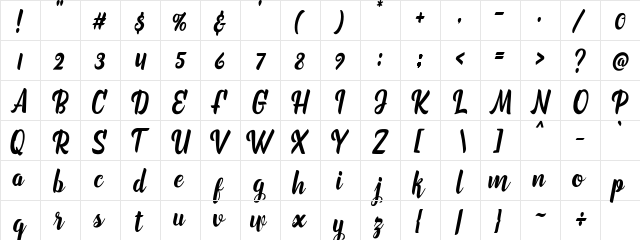
Marchelina Script Font Preview
Design Context for Marchelina Script Typeface
Marchelina Script brings a calligraphic fluidity to the page — its connecting strokes and expressive curves give it an unmistakably human quality.
Font Pairing: Combine Marchelina Script with a simple geometric sans for maximum contrast — the tension between flowing curves and clean structure is a classic typographic pairing.
Pro Tip: Pair Marchelina Script with a clean sans-serif for supporting text. The contrast between fluid script and geometric structure creates an elegant typographic hierarchy.